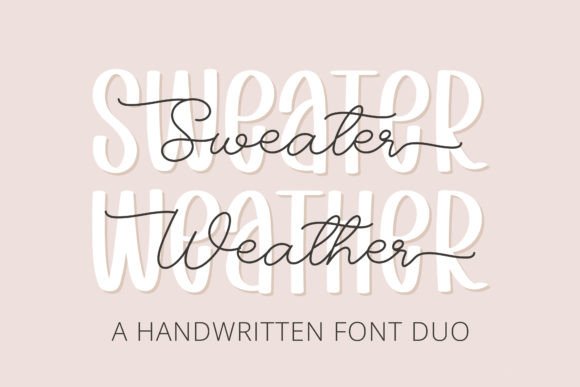
Introducing Sweater Weather Font, the ultimate script font that will instantly captivate your senses and elevate your creative projects to new heights! Created by the talented team at BitongType, this duo-styled handwritten font exudes both charm and delicacy, making it the perfect choice for any occasion.
Are you tired of generic fonts that fail to make a lasting impression? Look no further! Sweater Weather Font is here to revolutionize your design game. With its unique and eye-catching style, this font will effortlessly transform any creative idea into a true masterpiece.
Imagine the possibilities! From enchanting Christmas cards that spread holiday cheer to elegant wedding designs that leave a lasting impression, Sweater Weather Font is the perfect companion for all your festive endeavors. Its graceful strokes and intricate details will add a touch of magic to every project, ensuring that your creations stand out from the crowd.
But that's not all! Sweater Weather Font is not confined to just holiday-themed designs. Its versatility knows no bounds. Use it to create captivating local signs that draw attention, or give your branding and logos a touch of elegance and sophistication. The possibilities are endless!
Looking to add a personal touch to your favorite quotes or photography projects? Sweater Weather Font has got you covered. Its handwritten aesthetic brings warmth and authenticity to your words, making each quote and image truly unforgettable. And if you're in the mood for sending heartfelt birthday cards, this font will add an extra layer of love and thoughtfulness to your greetings.